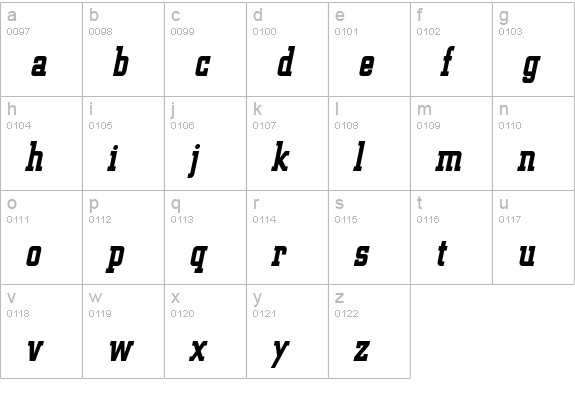
Geo 957-Condensed Bold Italic is a strong, high-contrast, condensed-width, italic variant in the Geo typeface family \xE2\x80\x94 well suited to headlines, attention-grabbing titles, and strong calls-to-action.
Introducing Geo 957-Condensed Bold Italic, a striking and modern font that exudes confidence and sophistication. Its condensed design adds a touch of sleekness, while the bold and italic styling commands attention and makes a bold statement. Perfect for headers, logos, and branding materials, this font is sure to elevate any design project to the next level. And the best part? Geo 957-Condensed Bold Italic is available for free download at FontsMarket.com. Yes, you read that right - this premium font can be yours at no cost, allowing you to unleash your creativity without any constraints. Don't miss out on this opportunity to enhance your design arsenal with the captivating Geo 957-Condensed Bold Italic font. Download it today and let your imagination soar!